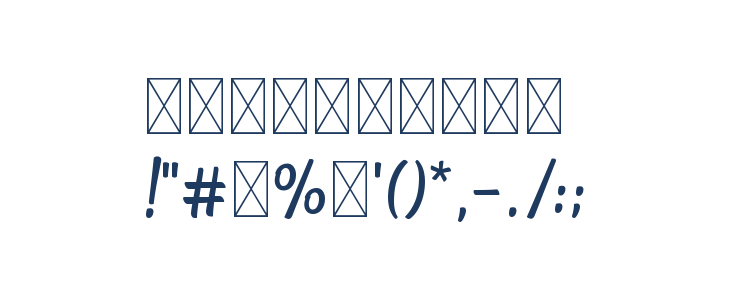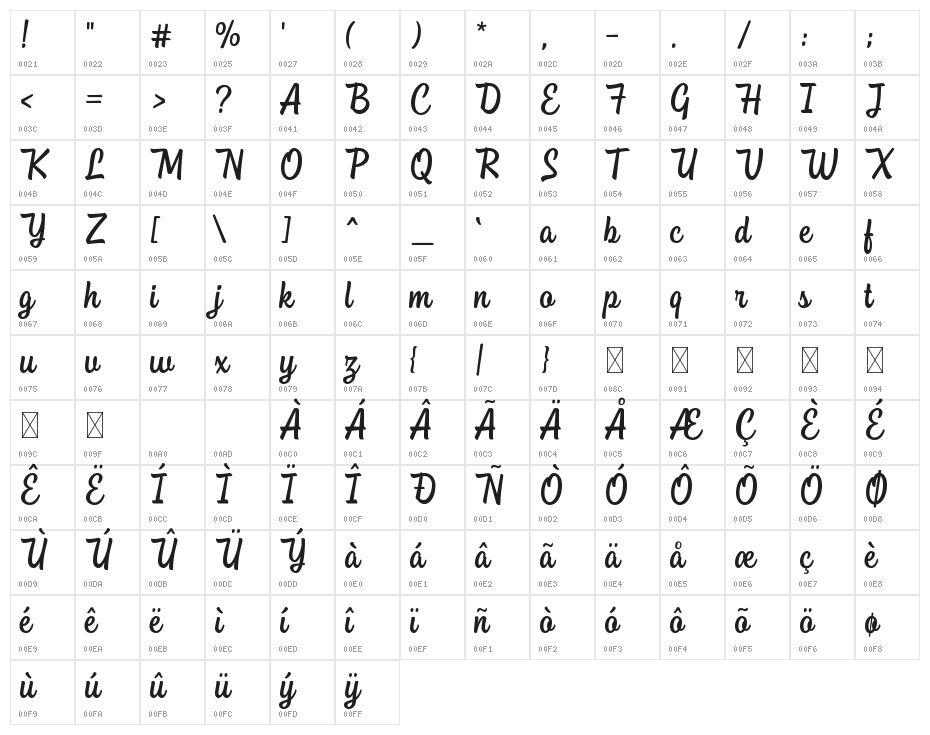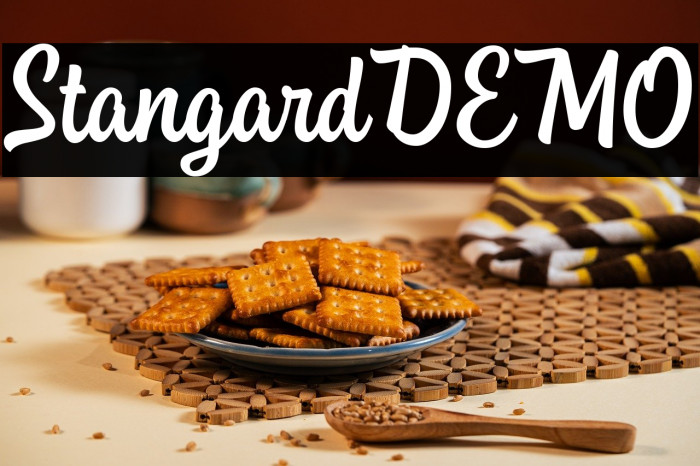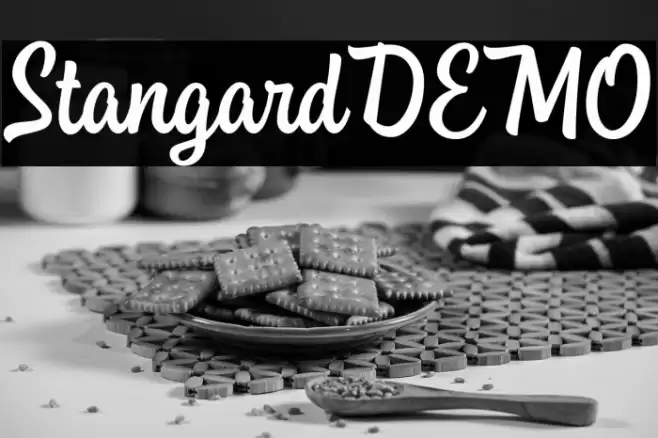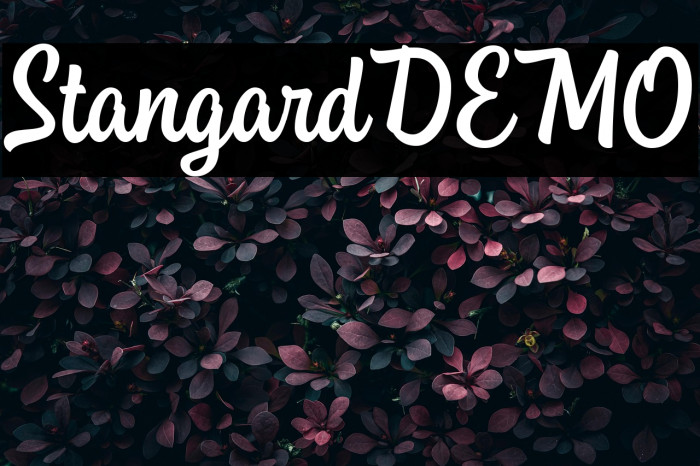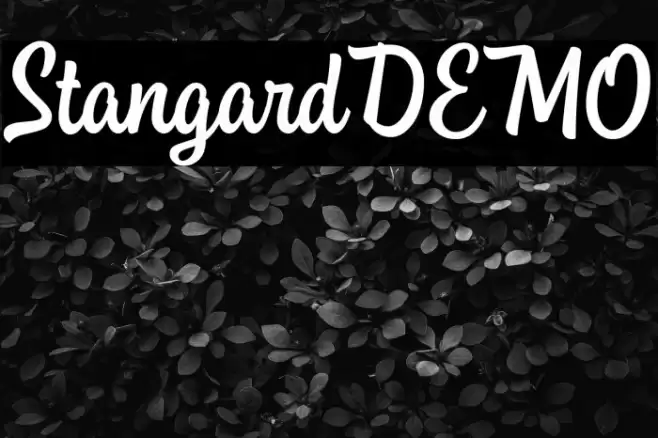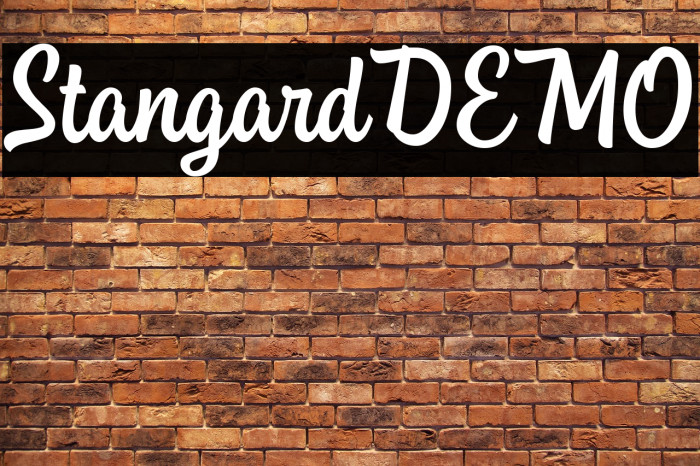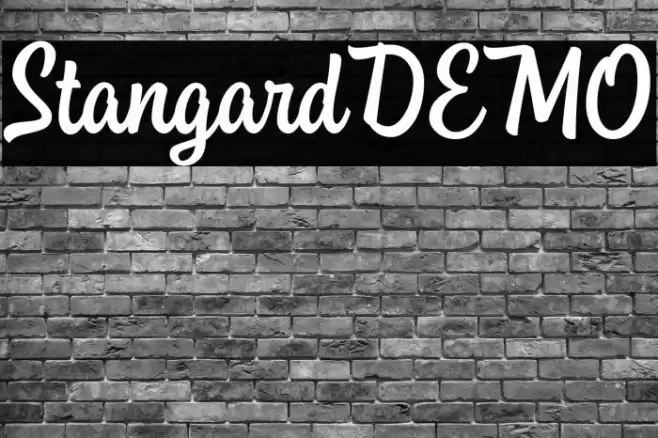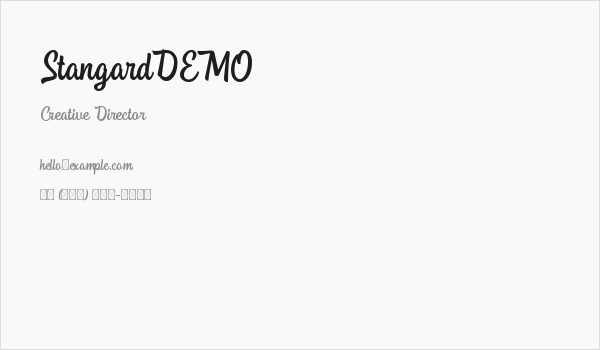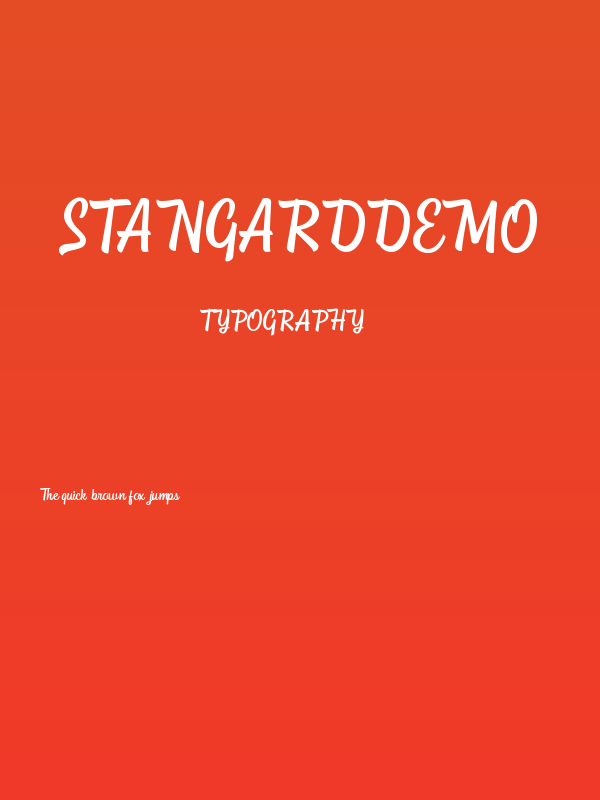
StangardDEMO Font
StangardDEMO Description
This font features a bold, cursive style with a playful and energetic appearance. The uppercase letters are slightly slanted, giving a sense of movement and fluidity. The lowercase letters maintain a consistent flow, with rounded edges and smooth curves that enhance readability. The numbers and special characters are designed to match the overall style, ensuring a cohesive look across all text. The font's boldness makes it stand out, while its cursive nature adds a touch of elegance and informality.
| Proposed Projects | Ideal for greeting cards, invitations, branding, and playful advertising materials. |